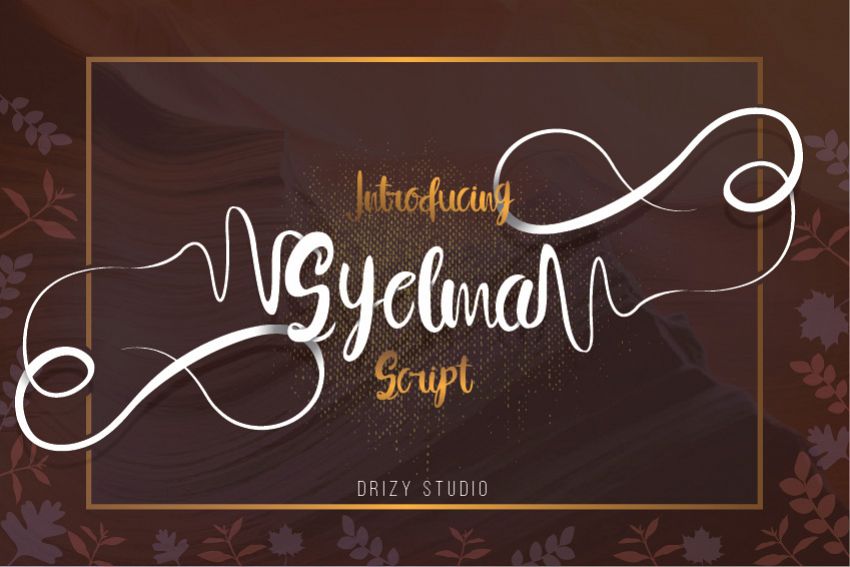
Syelma is a beautiful brush script font. It can be easily used for various creative projects like logos, wedding invitations, t-shirts, pillow, posters, etc.
This font is great for packaging, cover design, posters, logos, basically any time you need your message to pop. Syelma comes with two alternate upper and lowercase characters, and also come included with multilingual.